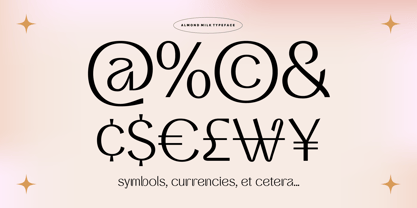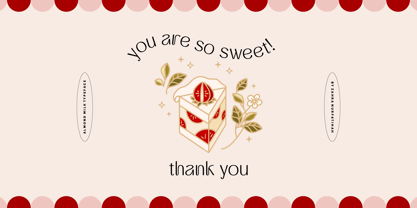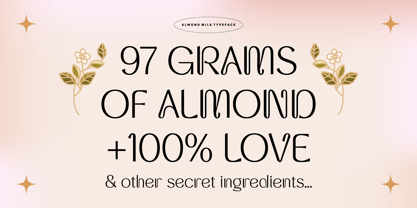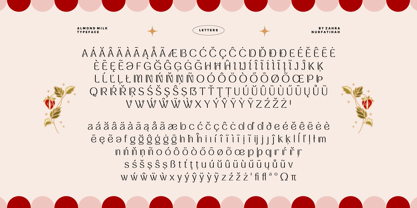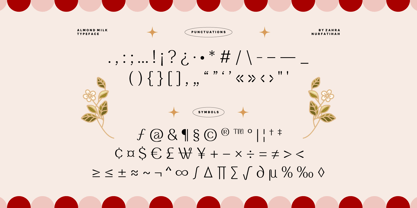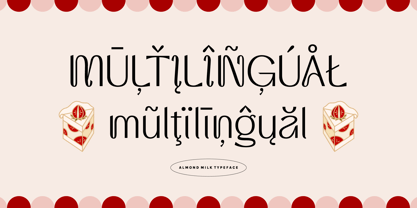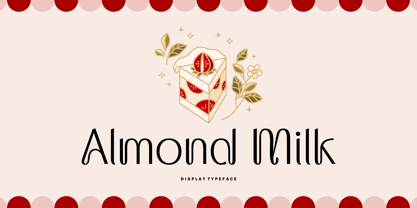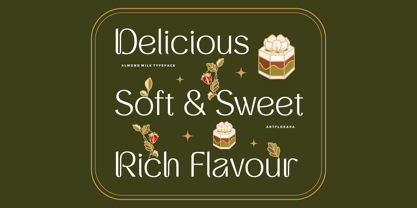
Almond Milk
by Artflorara
The Almond Milk Font Family was designed by Zahra Nurfatihah and published by Artflorara. Almond Milk contains 1 styles. More about this family
Almond Milk is a display sans serif typeface with playful vibes, flowy shapes and medium-contrasted stroke weight. This typeface is perfect for your design needs, such as branding design, book cover, posters, magazine, logo, etc.